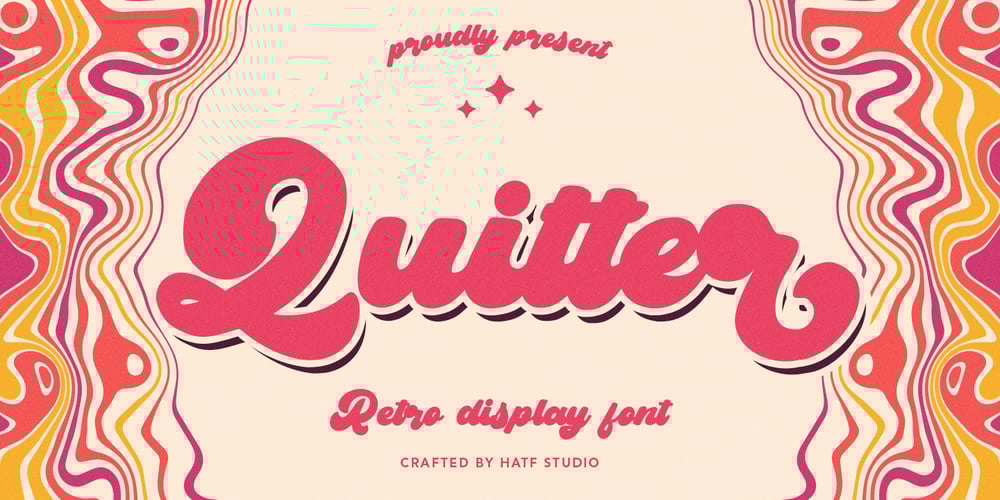
Quitter Font Family was designed by Asep Rendi and published by Hatftype. Quitter contains 1 styles and family package options. Is a font with groovy retro style. With distinctive handwritten characters perfect for branding projects, logos, wedding designs, media posts, advertisements, product packaging, product designs, labels, photography, watermarks, invitations, stationery, and any project who need handwritten dishes.Features :1. Uppercase & Lowercase2. Multilingual support3. Number4. Symbol5. Punctuation6. Support in Mac and Windows OS -Support in design application (photoshop, illustrator, and more)I really hope you enjoy it.